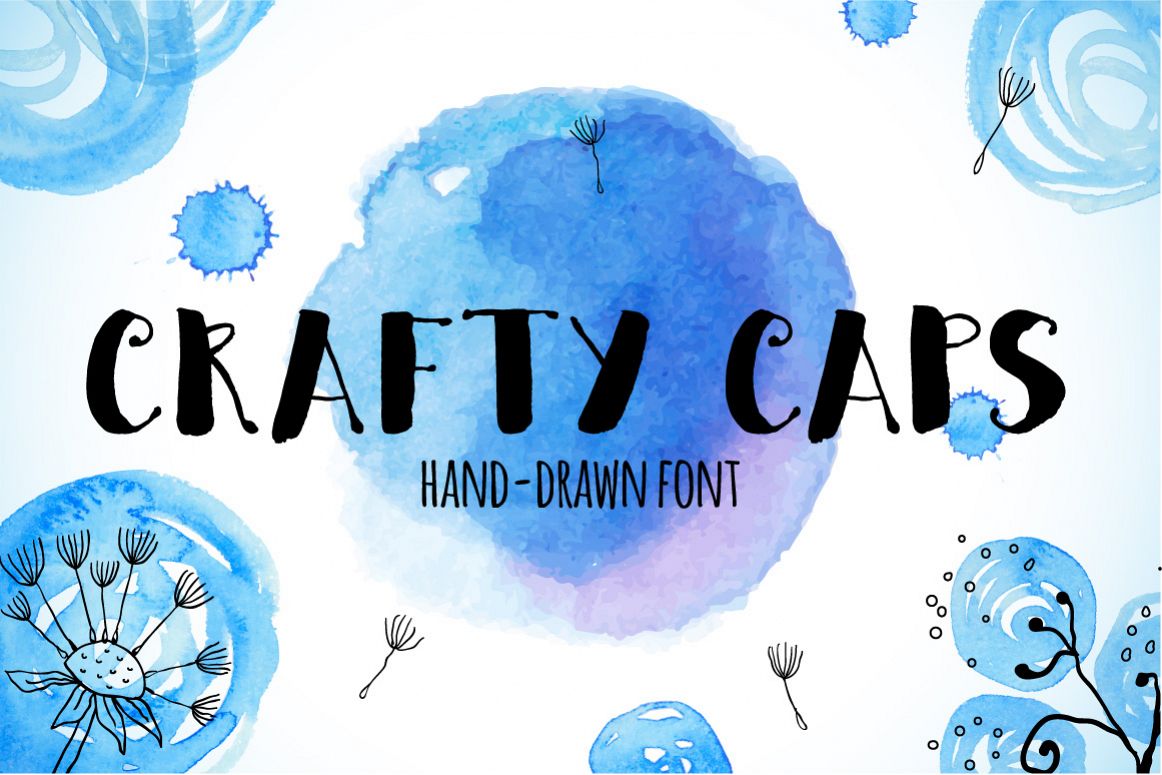
Crafty CAPS hand-drawn font
Crafty
Crafty CAPS is my first hand-writing font with unique brush painted letters. It is best viewed with hand drawn textures and elements. This font includes A-Z basic caps characters, numbers and punctuation symbols. In archive you'll find font file in TTF, OTF and WOFF formats.